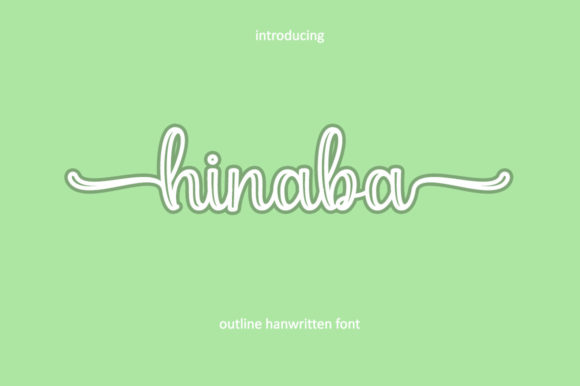
**Introducing Hinaba Font: The Heart's Canvas for Expression**
In a world where emotions run deep and hearts yearn for connection, Hinaba Font emerges as a beacon of creativity, an artistic haven where words dance with grace and sentiments find their voice. Handcrafted with love by the artistic maestro Hardiboy Design, Hinaba is not just a font; it's an emblem of passion, a testament to the power of expression.
Step into a realm of visual allure where each letter is a stroke of genius, a testament to the beauty that resides within the written word. Hinaba's enchanting script intertwines the elegance of calligraphy with the warmth of handwritten notes, evoking a sense of intimacy and authenticity. Whether it's a heartfelt love letter, an emotional journal entry, or a captivating social media post, Hinaba transforms your words into visual masterpieces.
Unleash the romantic spirit within and let Hinaba be your creative muse. This font is a match made in heaven for all things Valentine's Day. Its delicate curves and playful flourishes capture the essence of love, making it the perfect choice for cards, invitations, and heartfelt messages. Let Hinaba carry your heartfelt words like a whisper of affection, evoking emotions that resonate with the soul.
Explore the boundless versatility of Hinaba. Its charming personality shines through in logos, adding a touch of sophistication and uniqueness to your brand identity. Create eye-catching quotes that inspire and captivate, leaving an indelible mark on your audience. Elevate your t-shirt designs with Hinaba's whimsical charm, turning everyday clothing into wearable works of art.